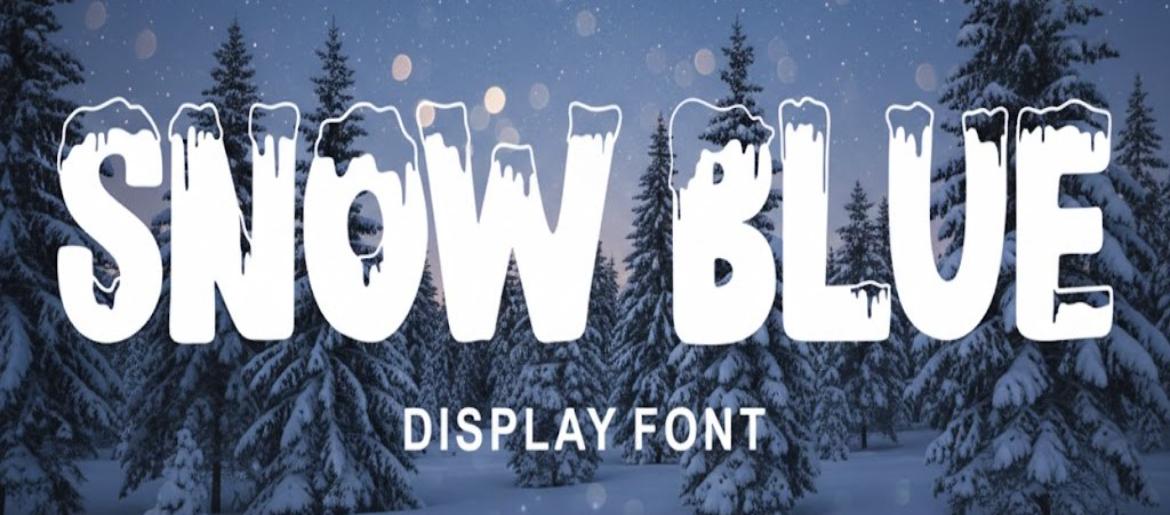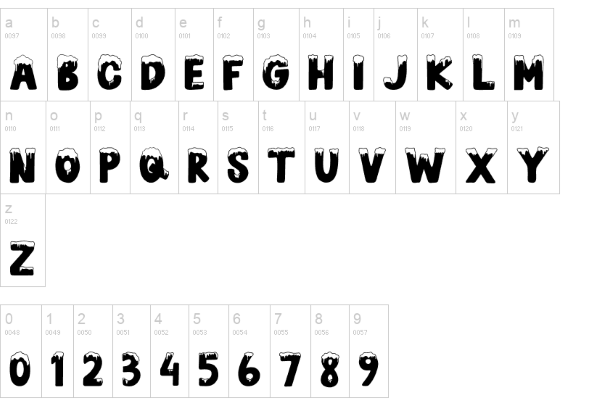
Snow Blue Font
Snow Blue Font is a fun cartoon-style display typeface with rounded shapes and a cheerful personality. Its playful letterforms create a light, friendly mood, making it perfect for kids’ designs, winter-themed graphics, posters, logos, and colorful branding. Snow Blue delivers strong readability while adding charm, joy, and a whimsical touch to creative projects.
➤ Font Name: Snow Blue
➤ Designer: Girinesia.std
➤ Style: Cartoon